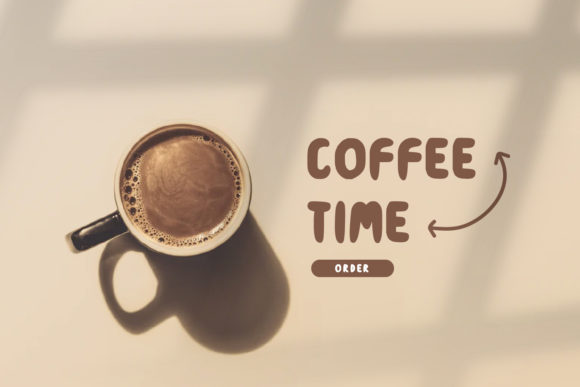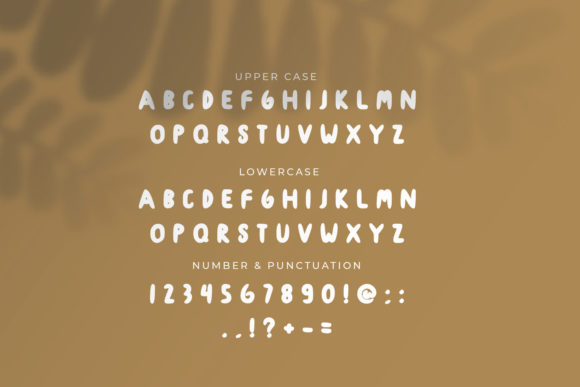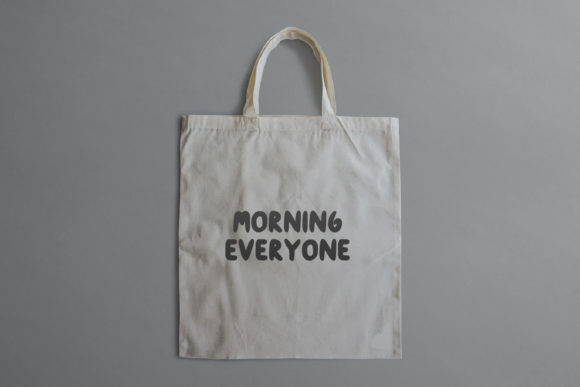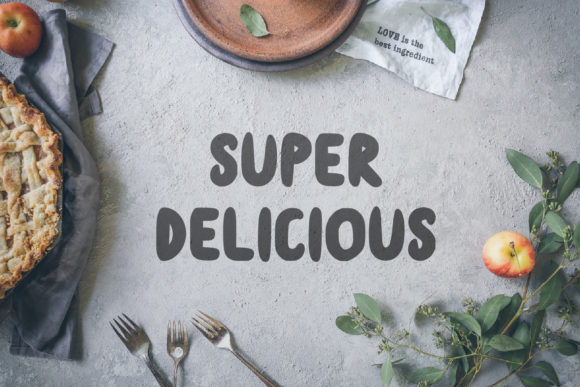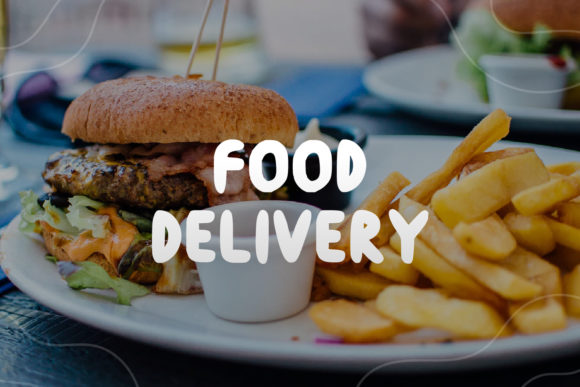
Introduction to Cookies Roma Font
Cookies Roma is a cute and quirky display font.
It looks very down to earth, easy to read and, in the end, very versatile Cookies Roma will look amazing in any context, whether used in a busy background or as a standalone headline.